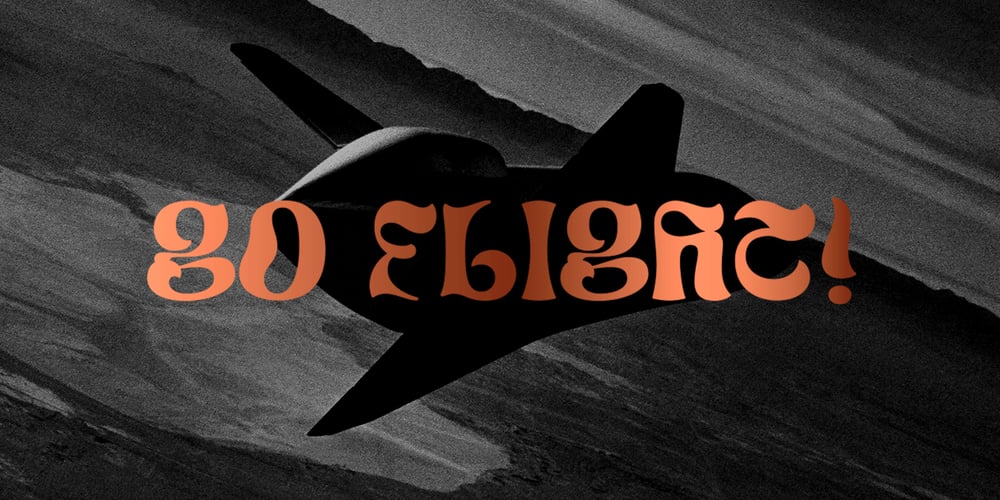
Mares Font Family was designed by Alex Camacho and published by Alex Camacho Studio. Mares contains 1 styles and family package options. Mares is an unicase typeface inspired by the American psychedelic movement from the mid 1960’s where capitals and lowercase used to be mixed and distorted to become part of the image. Mares is a bold and modern psychedelic font for use on special occasions. The bigger the better.